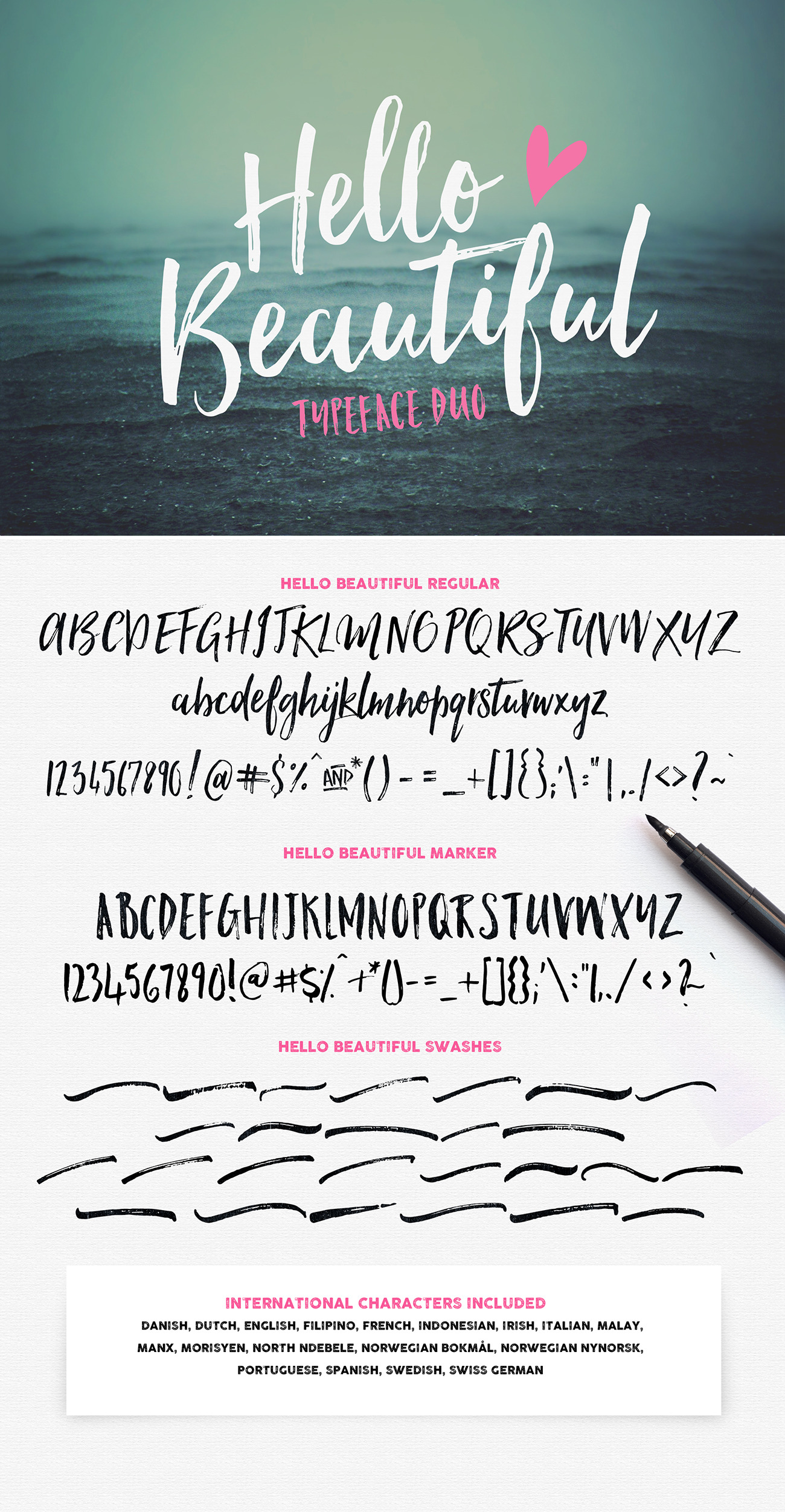
Hello Beautiful Font Duo + Swashes
Hello Beautiful!
Introducing a duo of hand-scripted fonts, carefully designed to work together in harmony for creating masterful typographic designs in a flash!
Included in the pack is 26 additional marker swashes in font form for you to add authenticity to your designs.
THE FONTS INCLUDED
Hello Beautiful Regular - a casual, arty Hand Script consisting of upper and lowercase letters, punctuation and numerals.Stylistic alternates for all the characters are also available, accessible in the Adobe Illustrator Glyphs panel, or in Adobe Photoshop CC 2015 Glyph Panel. For customers without access to either of these - an additional ttf file with the alternate characters is now included.
Hello Beautiful Marker is an uppercase only complimentary typeface which also supports international languages.
Hello Beautiful Swashes - 26 Marker style swashes accessed by typing upper or lowercase keys.